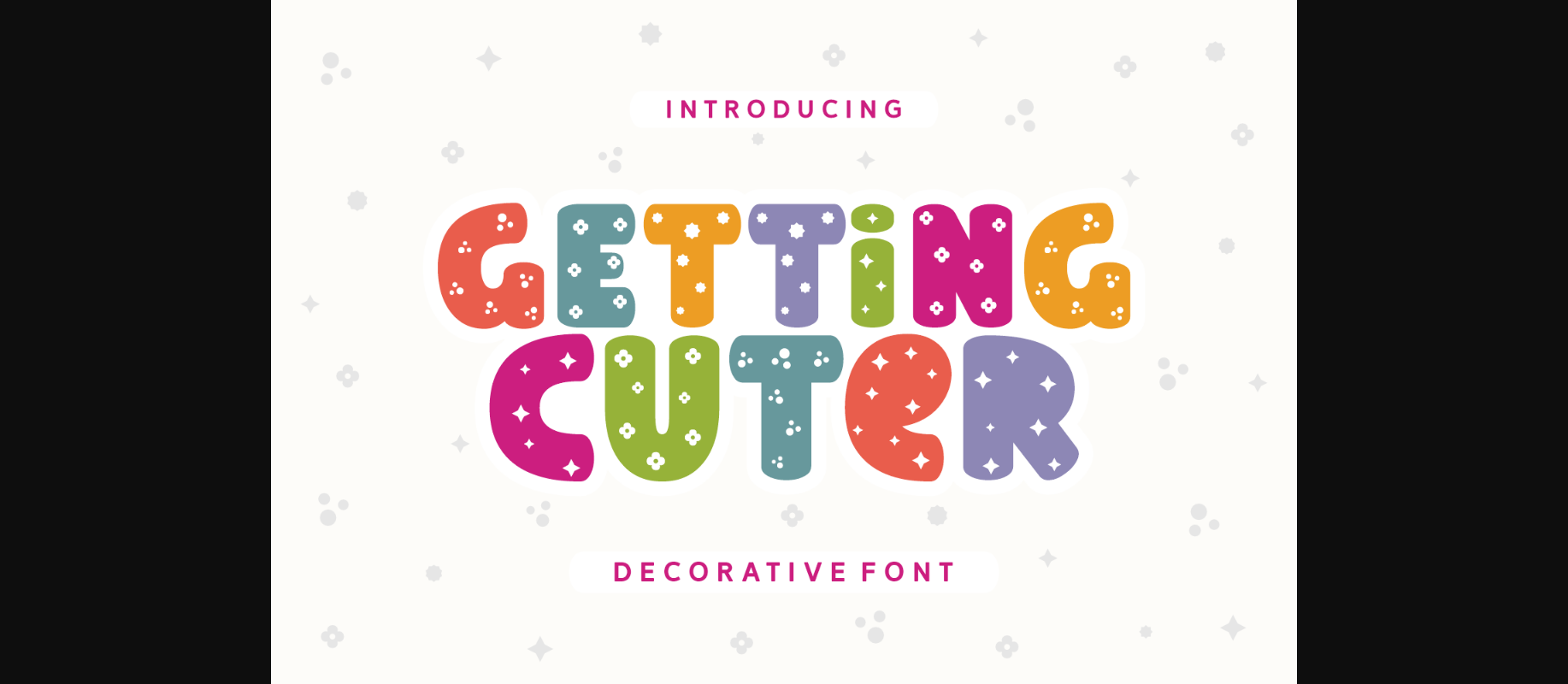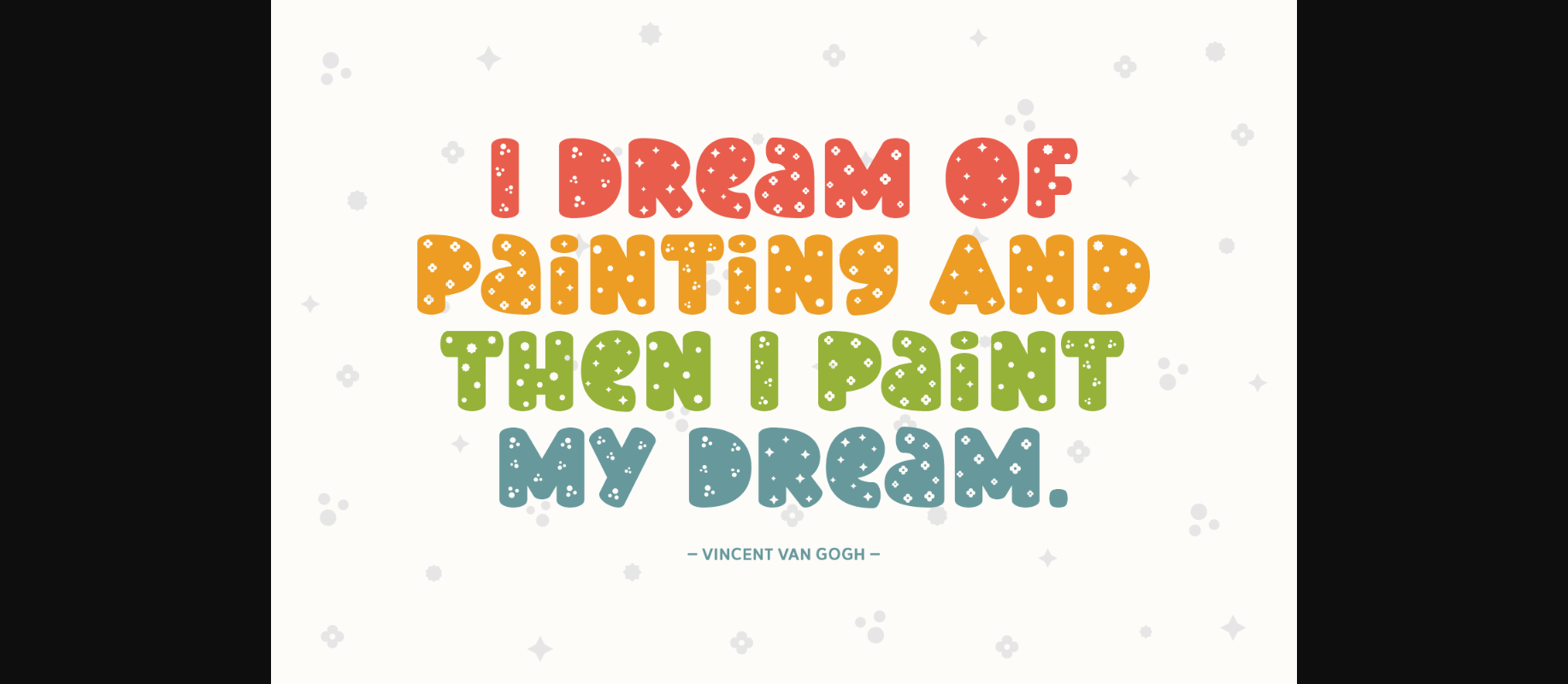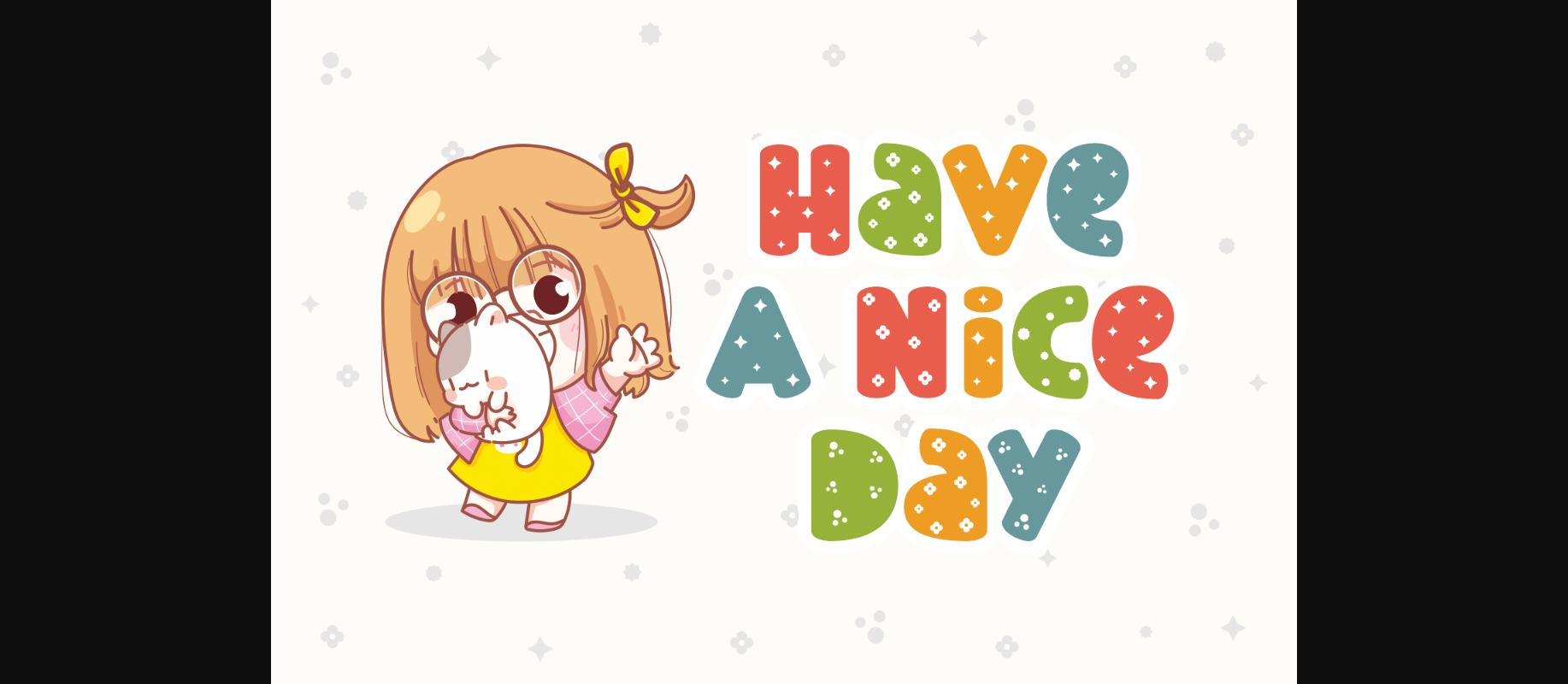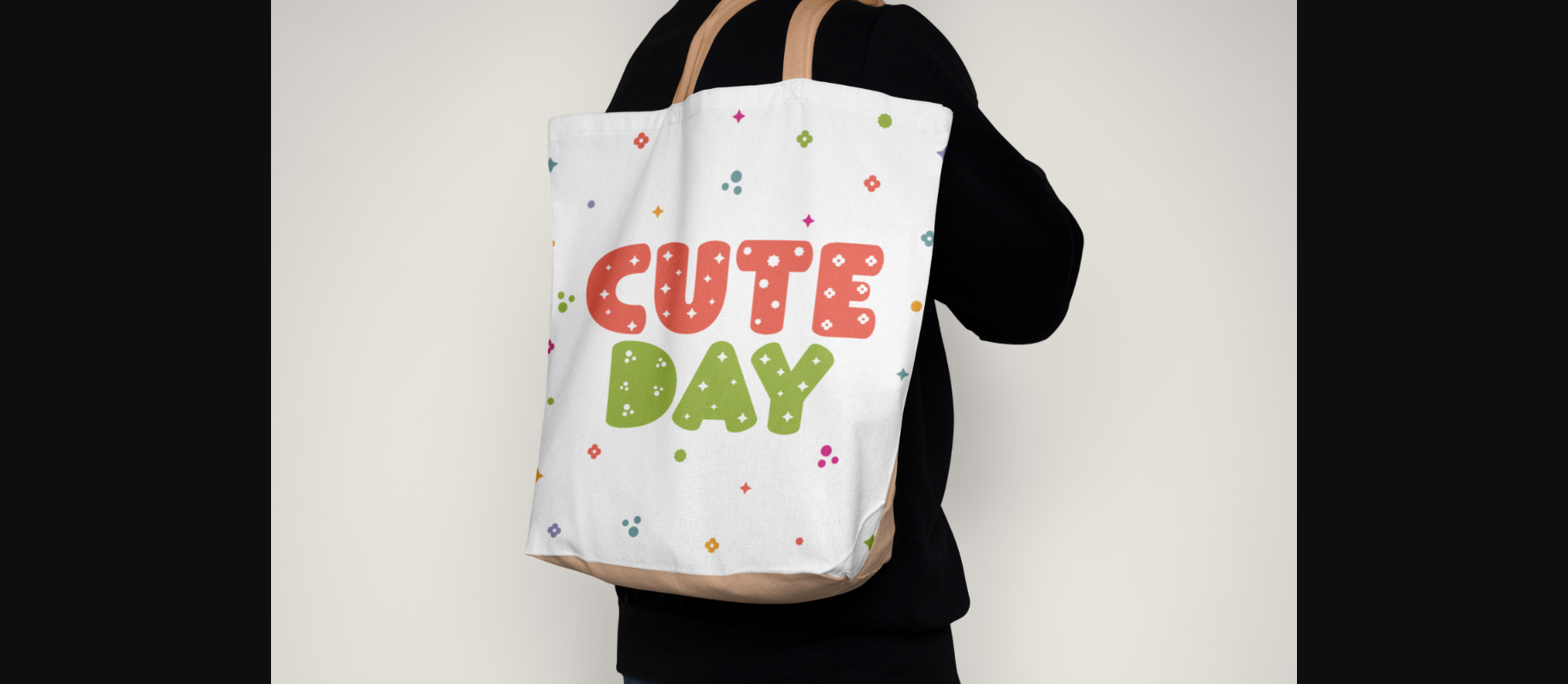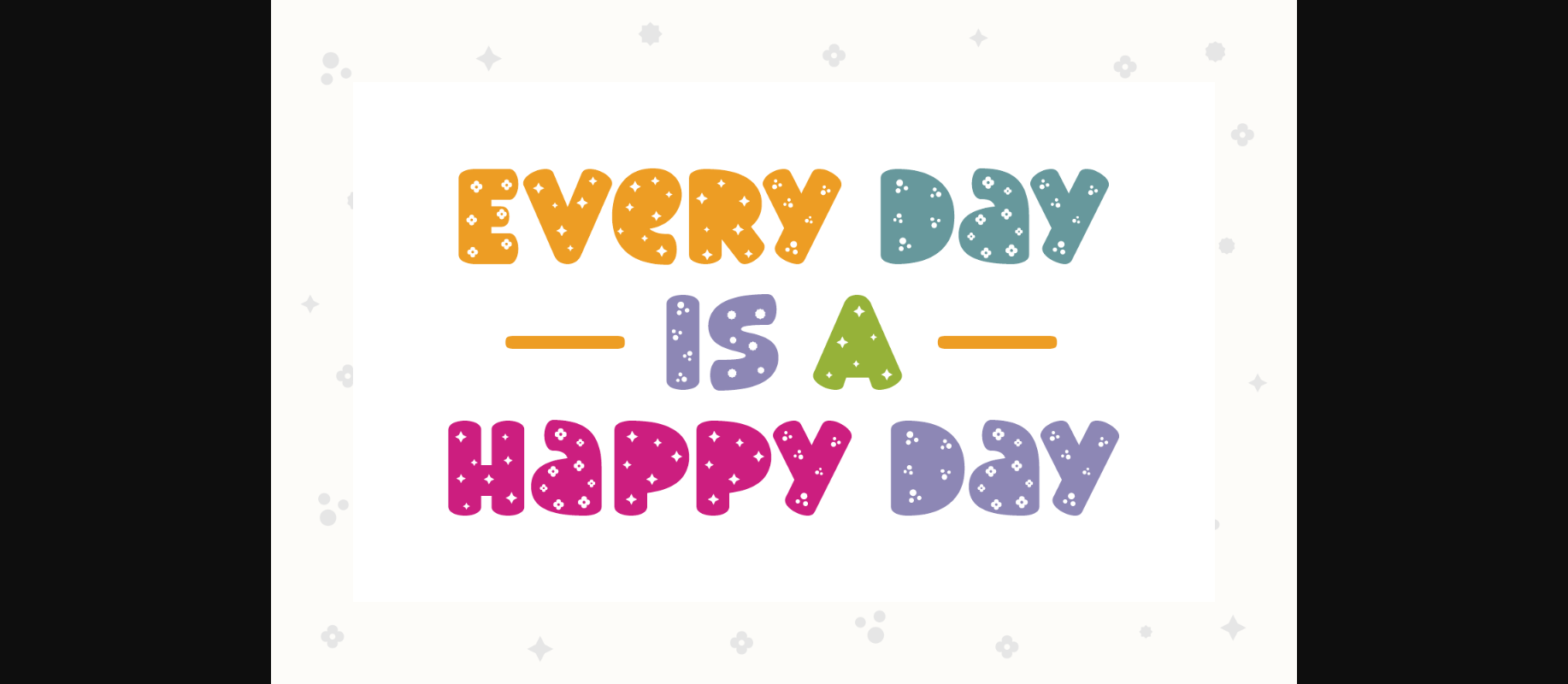
About Getting Cuter Font
Getting Cuter is an adorable decorative font that takes cuteness to the next level. Its chubby letters are adorned with charming little flowers and stars, adding a touch of whimsy to your text. Perfect for playful designs, invitations, or anything that needs a sprinkle of sweetness. Embrace the charm of Getting Cuter and let your text bloom with delightful details.